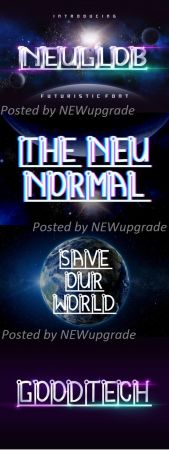
Neuglob celebrates abstract shapes in all their eclectic beauty. This playfully conceptual display font will look truly outstanding in a wide range of contexts.